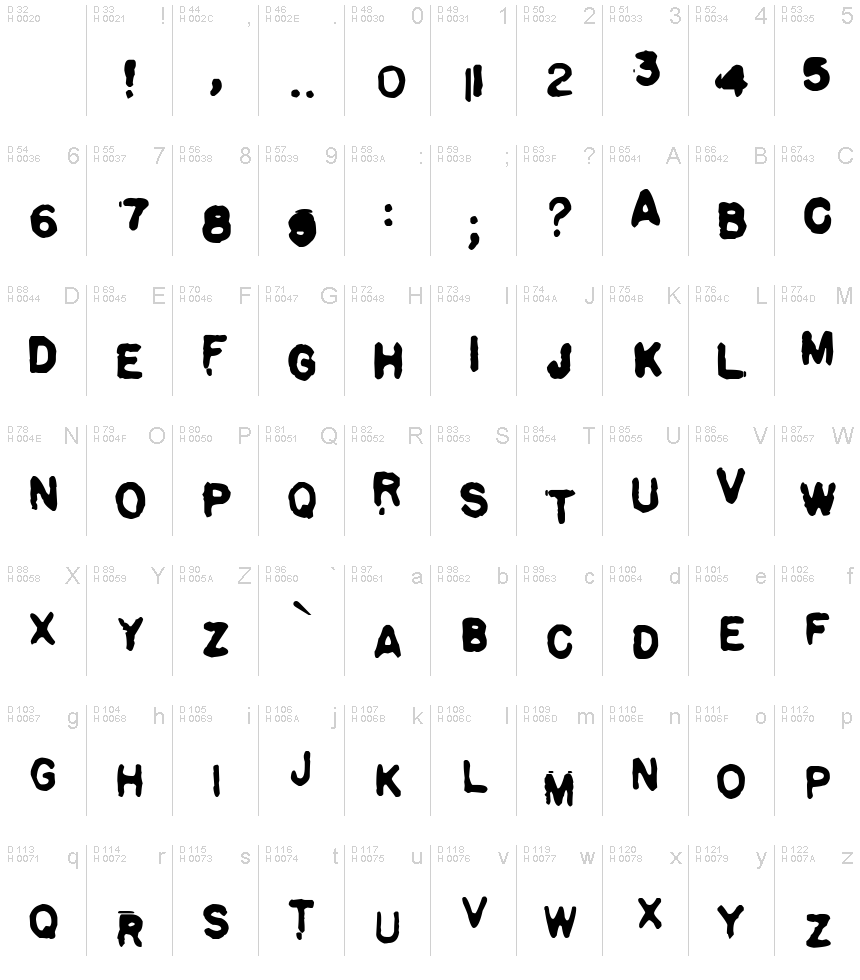
Pulp Stories
Pulp Stories is a captivating display font with an eroded, gritty aesthetic. Designed by imagex, this typeface exudes a vintage, hand-crafted charm that immediately evokes a sense of raw, edgy storytelling. The irregularly shaped letters, seemingly weathered and distressed, lend a distinct personality to the font, making it a perfect choice for book covers, movie posters, or any design project seeking a bold, uncompromising visual impact.
Pulp Stories' striking appearance seamlessly blends the old and the new, creating an unmistakable vintage feel that can elevate a wide range of design applications.